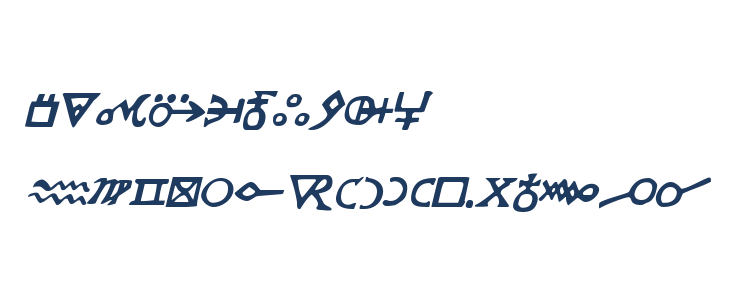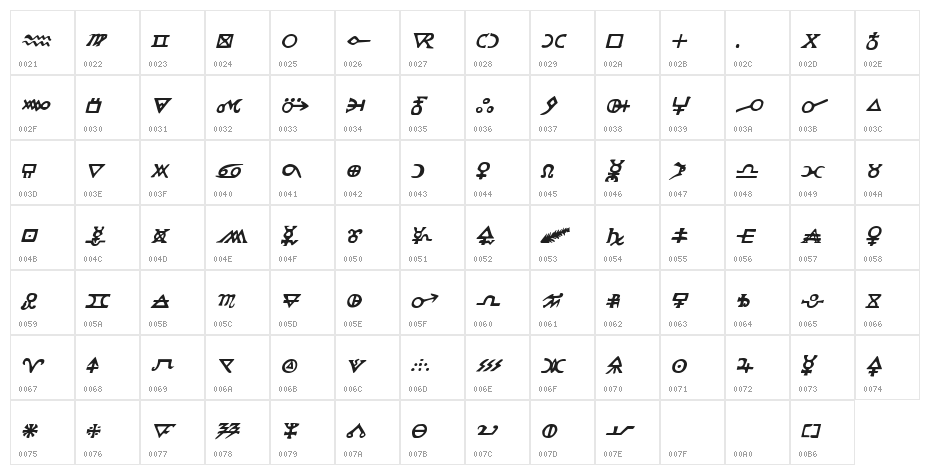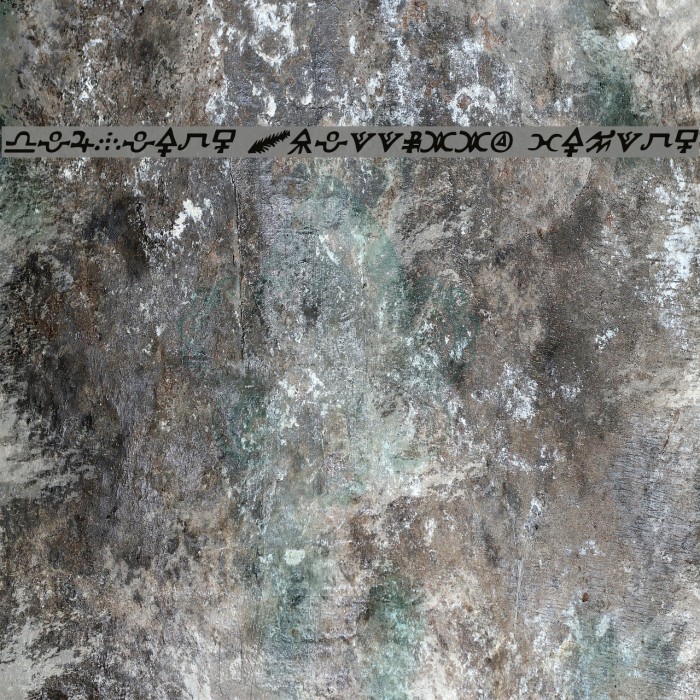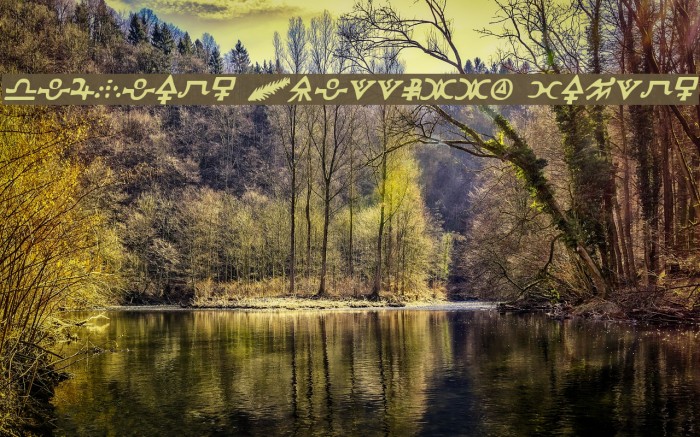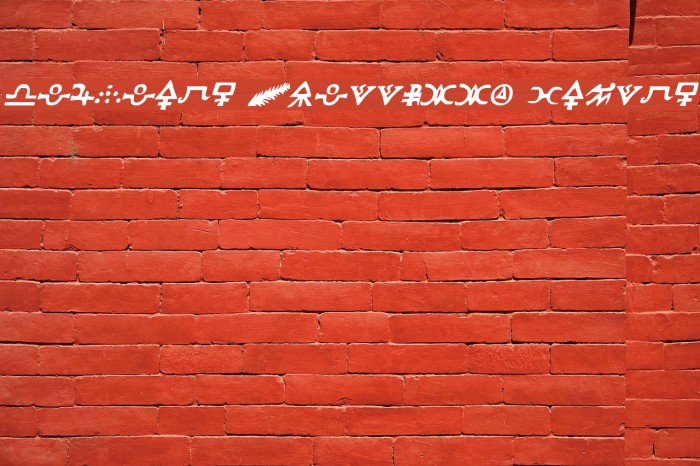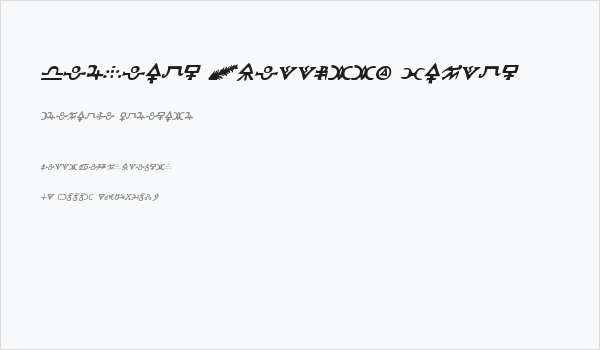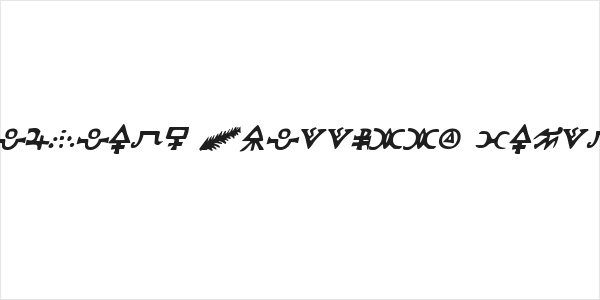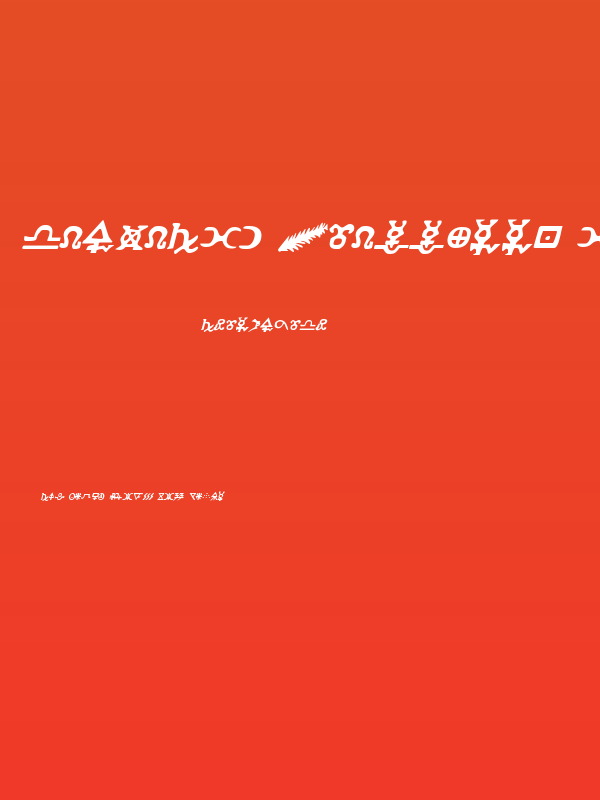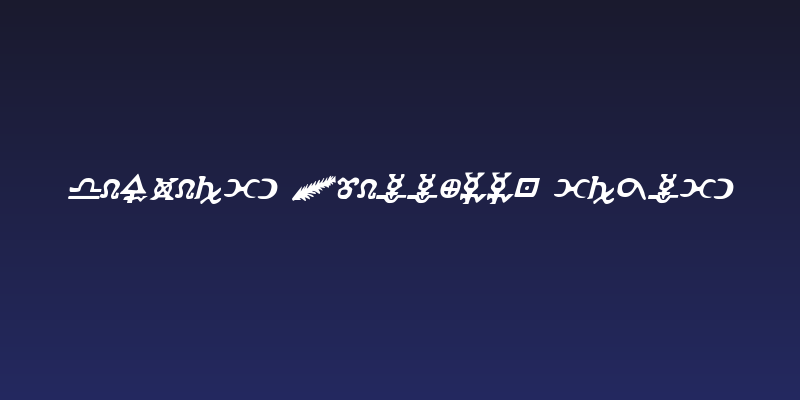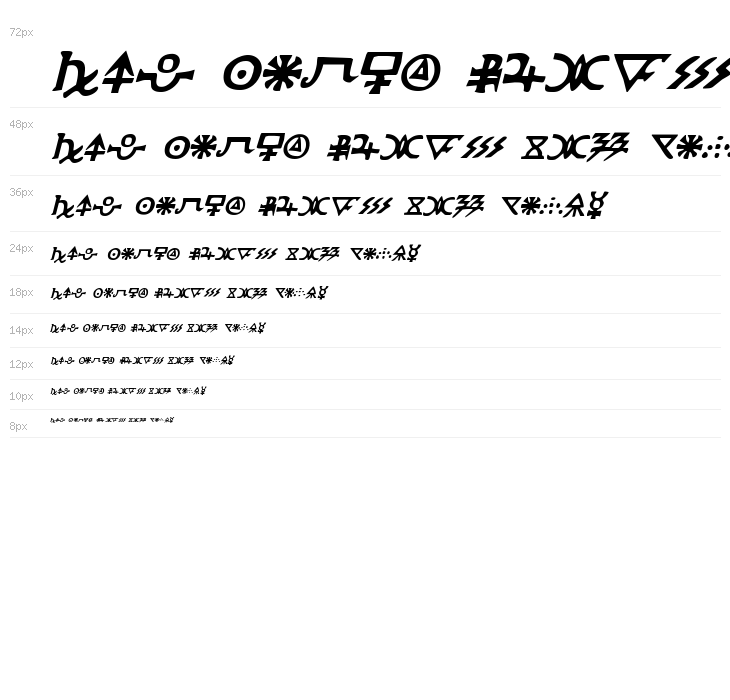
Hermetic Spellbook Italic Font
Hermetic Spellbook Italic Description
This font features a mystical and esoteric design, reminiscent of ancient symbols and runes. The characters are highly stylized with a unique blend of curves and sharp angles, creating an enigmatic and magical appearance. Each glyph is distinct, with intricate details that suggest a connection to arcane knowledge or secret scripts. The font's overall aesthetic is both mysterious and captivating, making it ideal for projects that require a touch of the supernatural or the occult. Its bold strokes and elaborate forms give it a strong presence, while the italic slant adds a dynamic and flowing quality.
| Overall Style | Mystical, Enigmatic, Esoteric |
| Use Case | Logos, Posters, Book Covers |
| Proposed Projects | Ideal for fantasy book covers, game design, mystical event posters, and themed merchandise. |